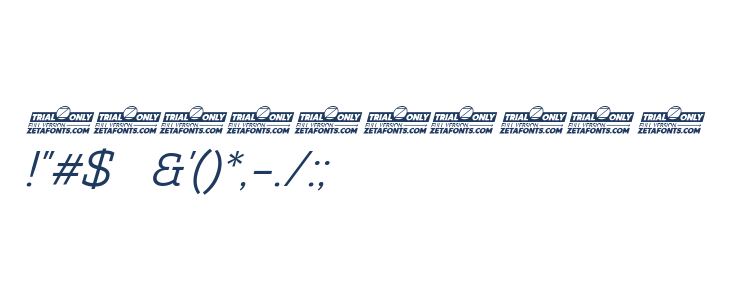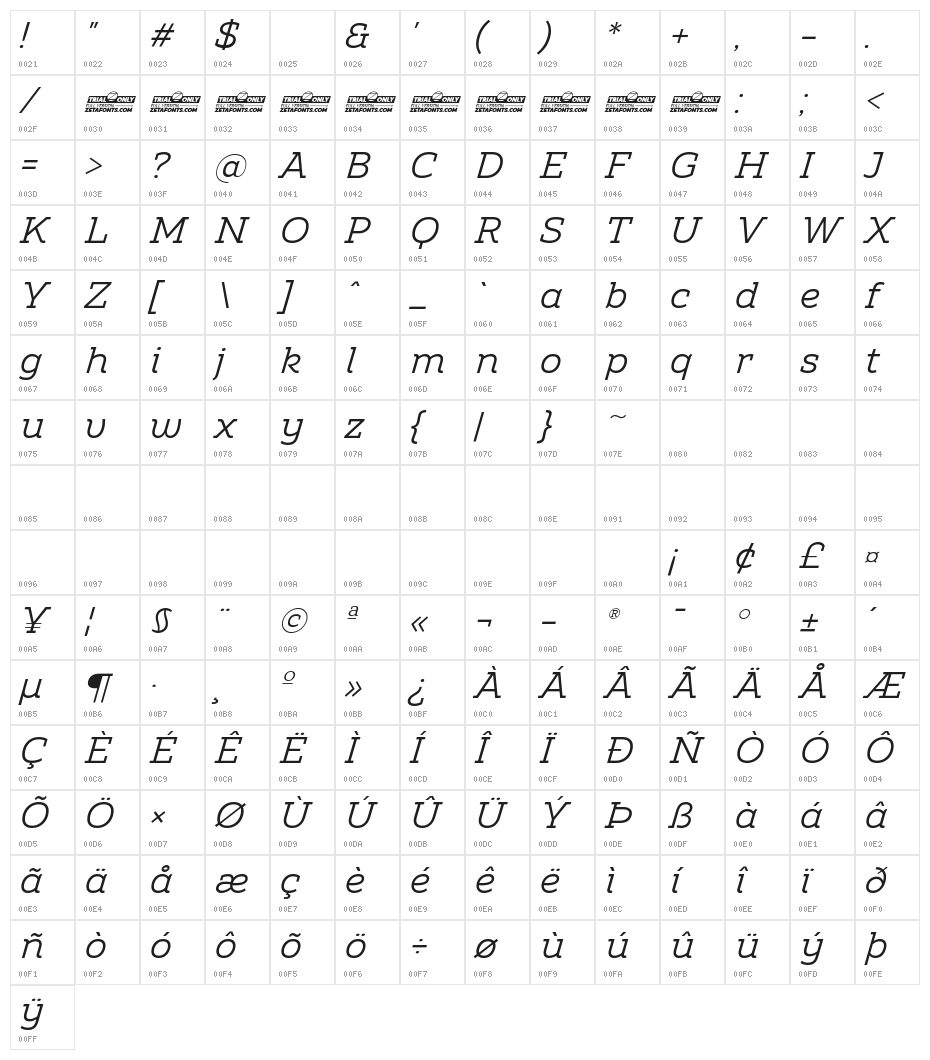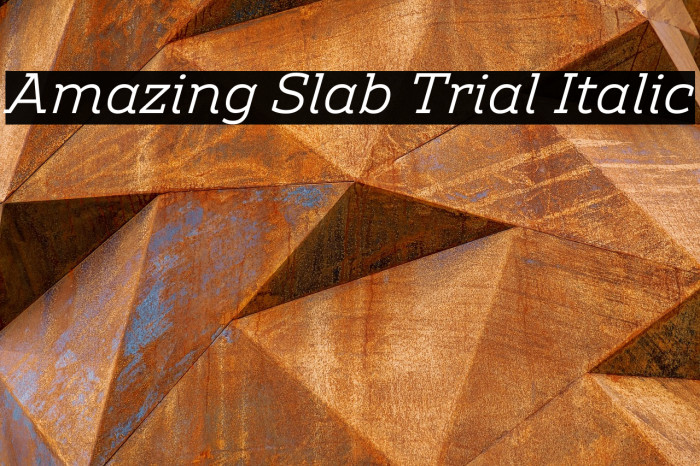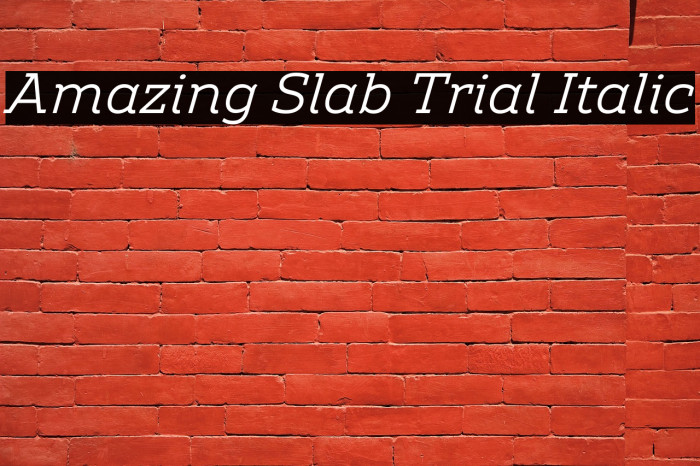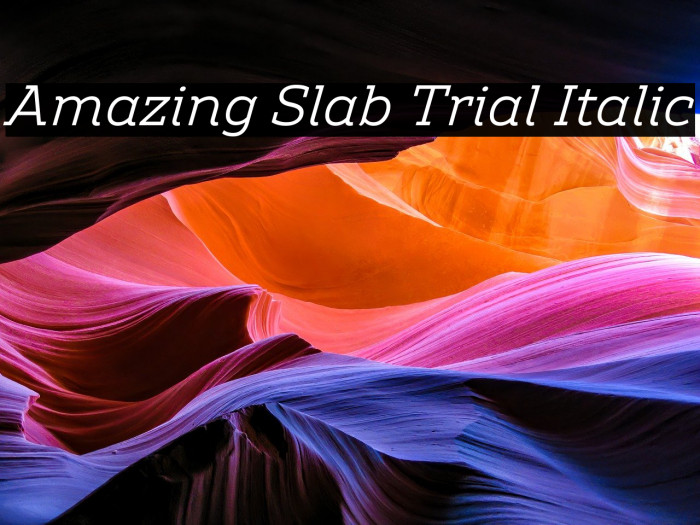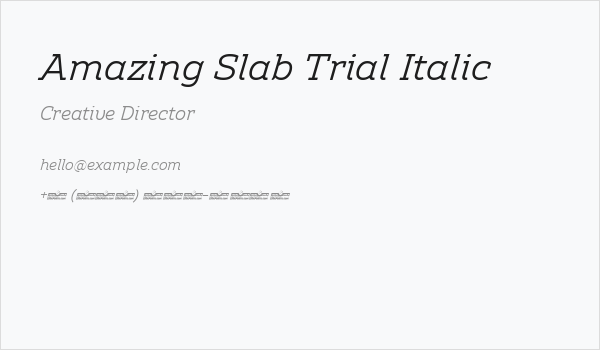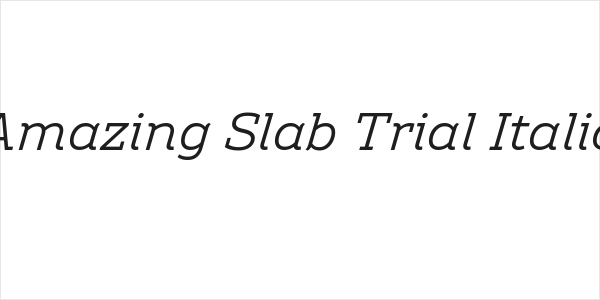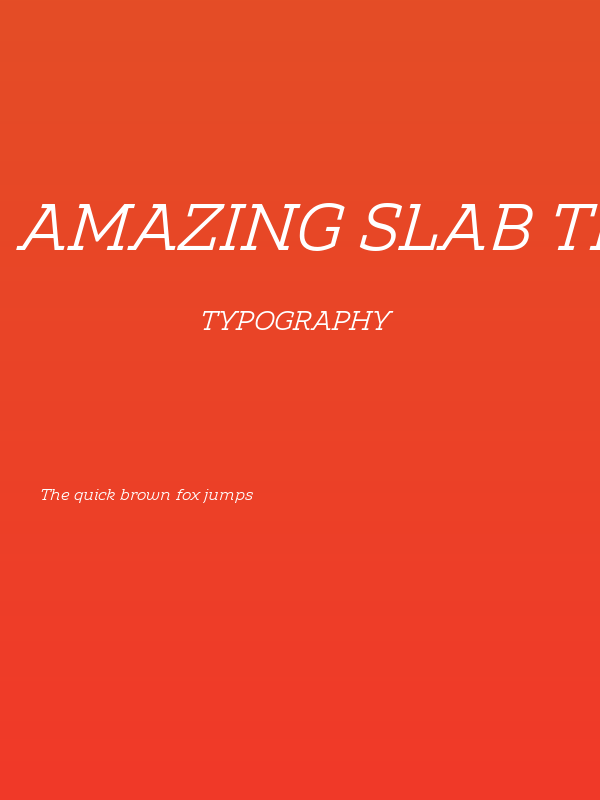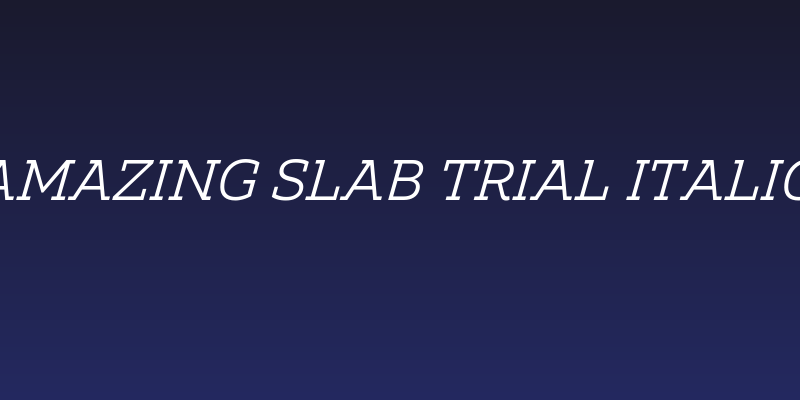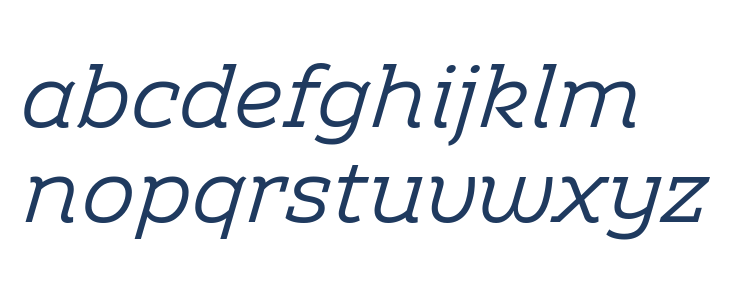
Amazing Slab Trial Italic Font
Amazing Slab Trial Italic Description
This font features a distinct italic style with a modern twist, characterized by its clean and smooth curves. The letters have a slight slant, giving them a dynamic and elegant appearance. The strokes are consistent and well-balanced, providing a harmonious flow across the text. The font maintains a professional and sophisticated look, making it suitable for various applications. Its readability is enhanced by the clear distinction between each character, while the italic nature adds a touch of flair and creativity.